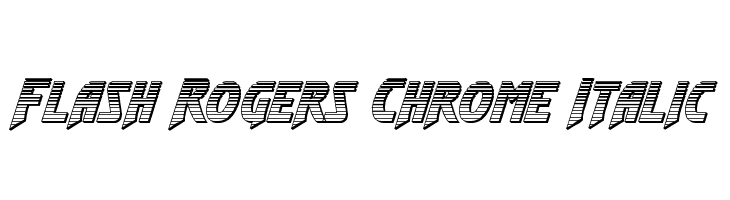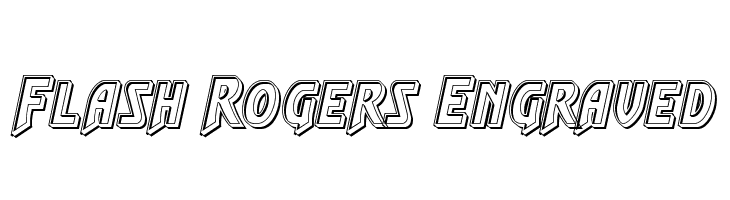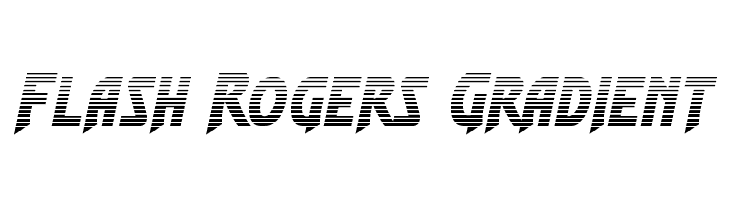
A bold, 3D italic font with dynamic and angular characters.
A bold, futuristic font with a 3D striped effect and sharp, angular design.
A bold, italicized font with a 3D effect and retro-futuristic style.
A bold, angular, and condensed font with a futuristic flair.
A bold, italic, and condensed font with a dynamic, futuristic style.
A bold, 3D engraved font with a dynamic, retro style.
A bold, angular font with a dynamic, energetic style.
A bold, italic, and expanded font with a dynamic and futuristic style.
A bold, futuristic font with a gradient effect and dynamic angular shapes.
A bold, italic font with a striped gradient effect, exuding speed and modernity.